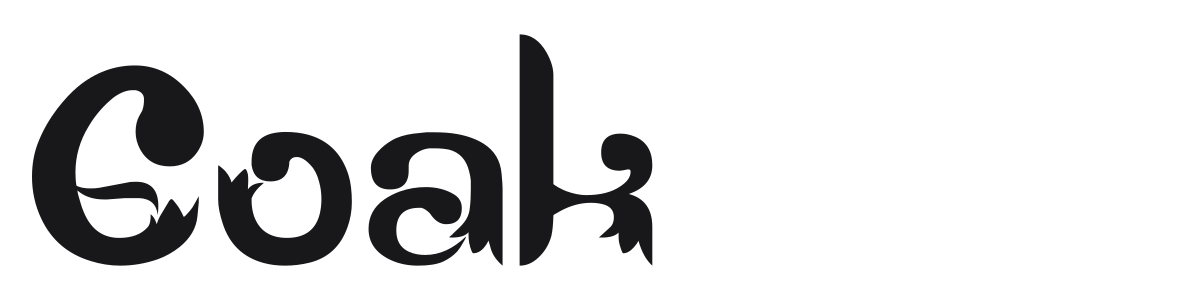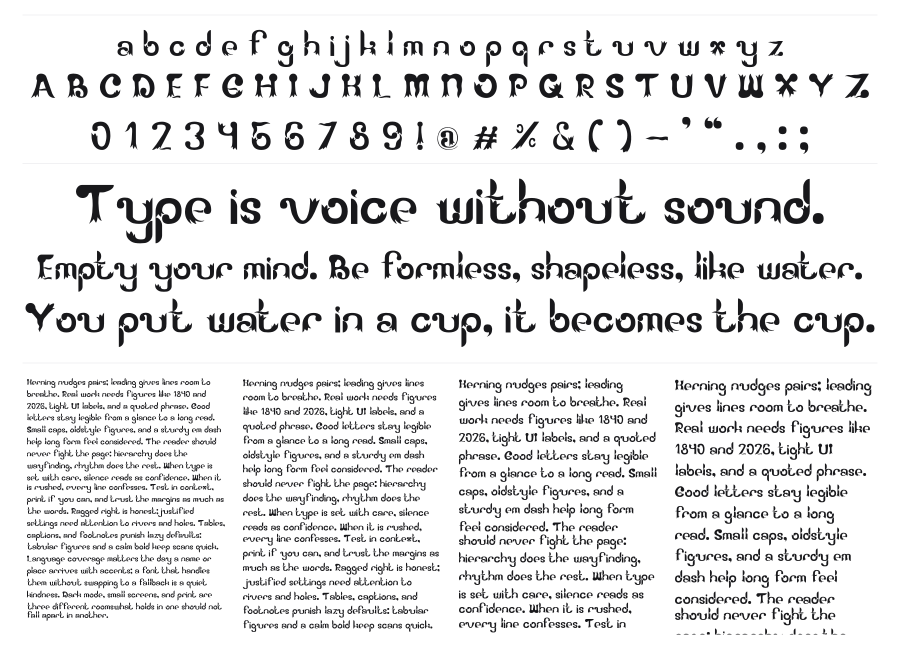
Goak
by Vannessa Jeane
Goak is a heavy display font whose thick strokes end in sharp, claw-like terminal spurs that give every character an untamed, creature-inspired edge. The base construction is a straightforward bold sans, but those organic protrusions push it into distinct novelty territory. It works best at large sizes where its wild details can breathe.